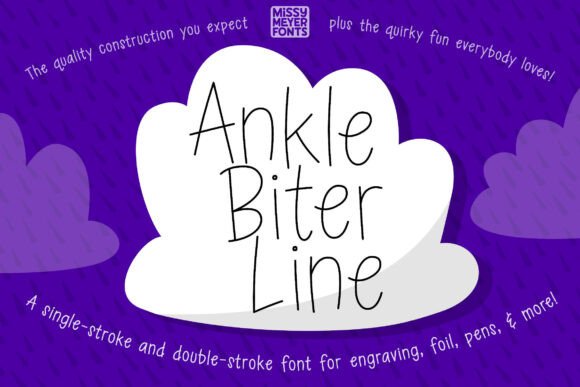
Introducing Ankle Biter Line Font: The Perfect Playful Companion for Your Creative Projects
In the world of typography, fonts come in all shapes and sizes, each with its unique character and purpose. For creative enthusiasts, crafters, and designers looking for that perfect playful touch, the Ankle Biter Line Font is here to elevate your projects. Adapted from the original Ankle Biter Print outline style, this single-line font is designed to bring fun, personality, and a friendly vibe to a wide range of applications.
The Charm of Ankle Biter Line
Ankle Biter Line boasts a fun, handwritten look with tall, friendly letterforms that are sure to capture attention. Its playful demeanor makes it an excellent choice for projects that demand a personal and approachable feel. Whether you’re creating greeting cards, personalized gifts, engraved jewelry, cutting boards, or any other craft that requires a unique touch, this font is perfectly suited for the task.
Designed for Versatility
Unlike traditional fonts that are optimized for printing, Ankle Biter Line is specifically designed for tools that draw rather than print. This forward-thinking approach makes it an ideal companion for a variety of precision tools, including:
- Sketch pens
- Foil quills
- Engraving tools
- Infusible ink pens
- Glowforge
This versatility ensures that you can achieve the desired effect across different mediums and projects, making Ankle Biter Line a valuable addition to your font collection.
Flexible Formats for Every Need
Understanding the diverse needs of creators, Ankle Biter Line comes in both single-stroke and double-stroke versions. This flexibility allows for seamless integration across various design programs and machines, ensuring that you can work with the font in a way that best suits your project.
In addition to the typeable font formats, an SVG file containing the full character set is also included. This SVG version is perfect for manual use or when your software doesn’t fully support the typeable font, providing an alternative solution for projects that require a more hands-on approach.
Tips for Specific Software and Machines
While Ankle Biter Line is designed to be user-friendly, there are a few considerations to keep in mind for certain software and machines:
Bringing Creativity to Life with Ankle Biter Line
Whether you’re a seasoned crafter, an engraving enthusiast, or a precision drawing aficionado, Ankle Biter Line is poised to add a touch of charm and creativity to every design. Its adaptability and friendly aesthetic make it an invaluable asset for anyone looking to infuse their projects with personality and whimsy.
Exploring the Possibilities
The applications of Ankle Biter Line are as diverse as the imagination of the creator. Here are a few ideas to get you started:
- Greeting Cards: Add a playful and personal touch to your cards for birthdays, holidays, or just because.
- Personalized Gifts: Make gifts extra special with custom-engraved names, messages, or designs.
- Engraved Jewelry: Create unique pieces that carry a personal message or the recipient’s name.
- Crafting Projects: From cutting boards to customized home decor, Ankle Biter Line can add that extra special something to your DIY projects.
Ankle Biter Line Font is more than just a typeface; it’s a creative companion designed to bring joy, personality, and a professional touch to a wide range of projects. Its versatility, flexibility, and playful charm make it an indispensable tool for crafters, designers, and anyone looking to add a bit of whimsy to their creations.
With Ankle Biter Line, you’re not just choosing a font; you’re unlocking a world of creative possibilities that can elevate your projects from ordinary to extraordinary. So why settle for the mundane when you can add a playful bite to your designs?
Embark on a creative journey with Ankle Biter Line and discover how this delightful font can transform your projects with its unique blend of playfulness and professionalism.